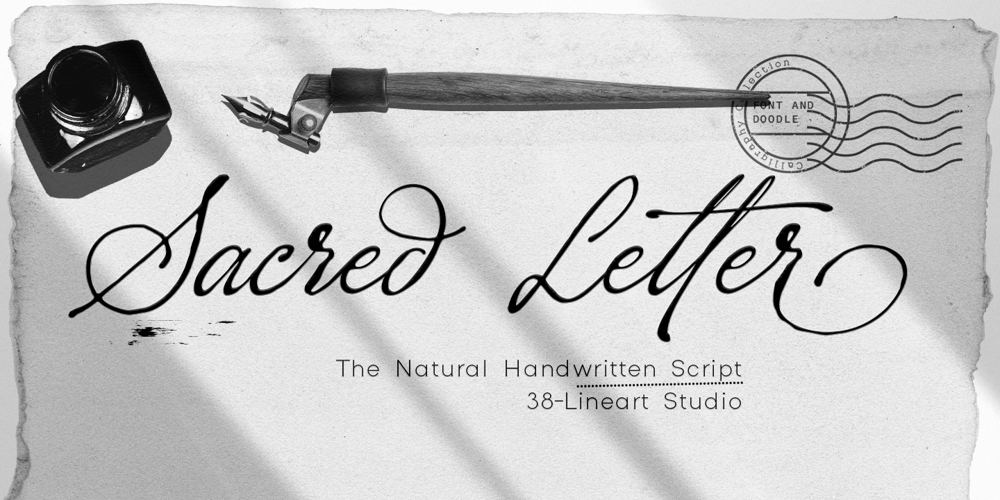
Sacred Letter Font Family was designed by Muhammad Ridha Agusni and published by 38-lineart. Sacred Letter contains 3 styles and family package options. Sacred letter is a font that follows the rules of calligraphy writing, but the difference is there is a natural emphasis on handwriting. The Thick and thin are not smooth to describe the flow of natural ink.The pure calligraphy tends to the classic style with nuances of the grandeur of the past. This font is more open and appears as-is. The flexibility of the style makes it can survive in the classic style and modern style.Sacred Letter is a flowing and classic handwritten font, described by an elegant touch, perfect for your dearest projects. Fall in love with its incredibly distinct and timeless style and use it to create spectacular designs!This font is PUA encoded which means you can access all of the glyphs and swashes with ease! It features a varying baseline, smooth lines, gorgeous glyphs and stunning alternates.